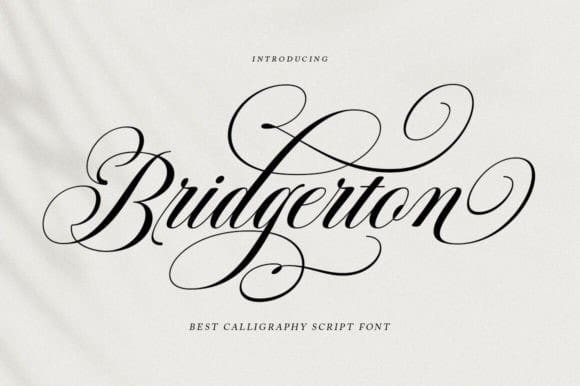
Bridgerton Font
Bridgerton Font is a calligraphy font that comes with exquisite changing characters, a kind of classic decorative copper script with a modern touch, designed with high details to bring out the elegance of the style. Bridgerton Script Font is attractive because the typeface is smooth, clean, feminine, sensual, glamorous, simple and very easy to read, because of the many luxurious letter connections. I also offer a number of viable style alternatives for many letters. The classic style is very suitable to be applied in various formal forms such as invitations, labels, restaurant menus, logos, fashion, make up, stationery, novels, magazines, books, greeting/wedding cards, packaging, labels or all kinds of advertising purposes. .